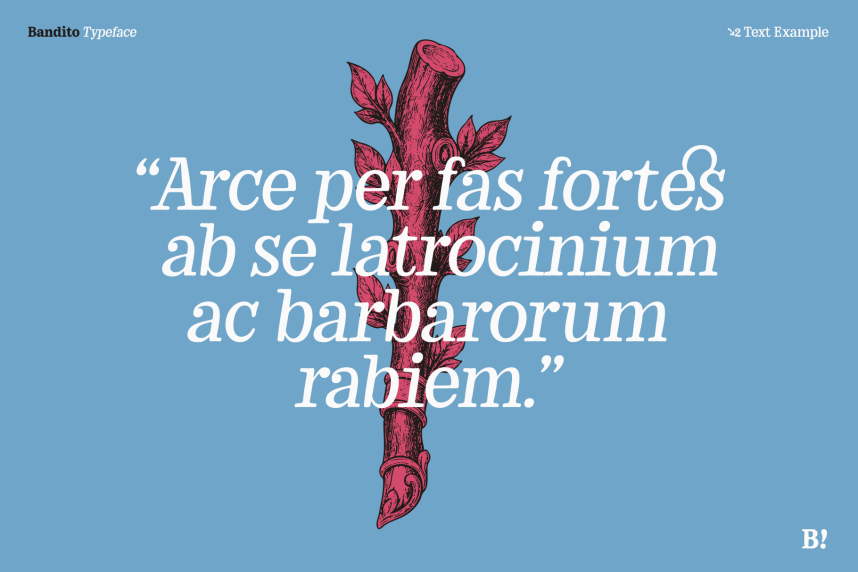
Bandito – Variable Serif Typeface
Bandito – Variable Serif Typeface is a contemporary rounded serif typeface rooted in the warmth and vitality of Italian typography. Inspired by vintage posters and a strongly expressive graphic tradition, it distills that visual culture into a disciplined system where structure and rebellion coexist in constant tension. typography, typeface, serif, rounded serif, font design, type design, Italian typography, vintage, retro, branding, editorial design, packaging, poster design, display font, ligatures, small caps, OpenType, multilingual, premium font, bottleneck, hourglass, expressive, identity, music, cultural
–– Design Highlights ––
Every glyph features a characteristic bottleneck — an
hourglass-like narrowing that holds back the ink at the base,
as if the letter itself resists the weight it carries.
Key characters become signatures, introducing intentional
deviations that interrupt predictability without breaking
the system. In the Black weight, the “bandit” fully emerges:
compressed, tense, and assertively expressive.
Where rebellion meets structure. Fight on.